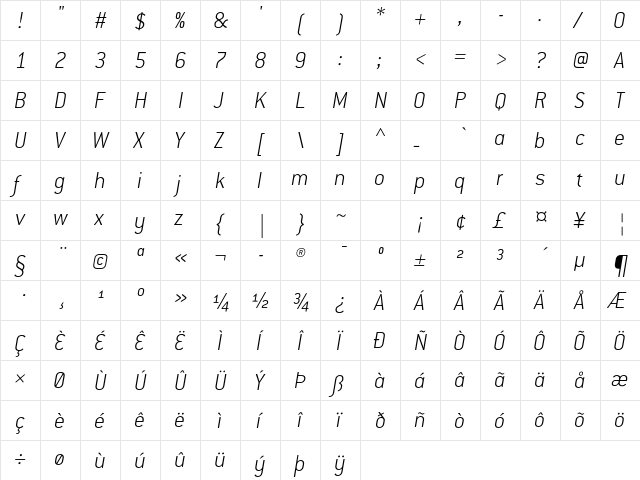
ConduitITCStd ExtraLightItalic Font Preview
Rendered live in your browserConduitITCStd ExtraLightItalic Font Details
| Style | ExtraLightItalic |
| Foundry | International Typeface Corporation |
| Designer | Mark van Bronkhorst, MvB Design |
Design Context for ConduitITCStd Typeface
ConduitITCStd offers clean, dependable letterforms without strong stylistic allegiance, making it a practical choice for designers who need flexibility. Its italic angle brings a sense of urgency and motion to the letterforms. Its slender proportions lend an understated elegance to any composition. Its narrow stance lets it pack a punch even in space-constrained designs.
Pro Tip: Use ConduitITCStd for emphasis, pull quotes, and subheadings where its slanted energy can add rhythm to the layout.